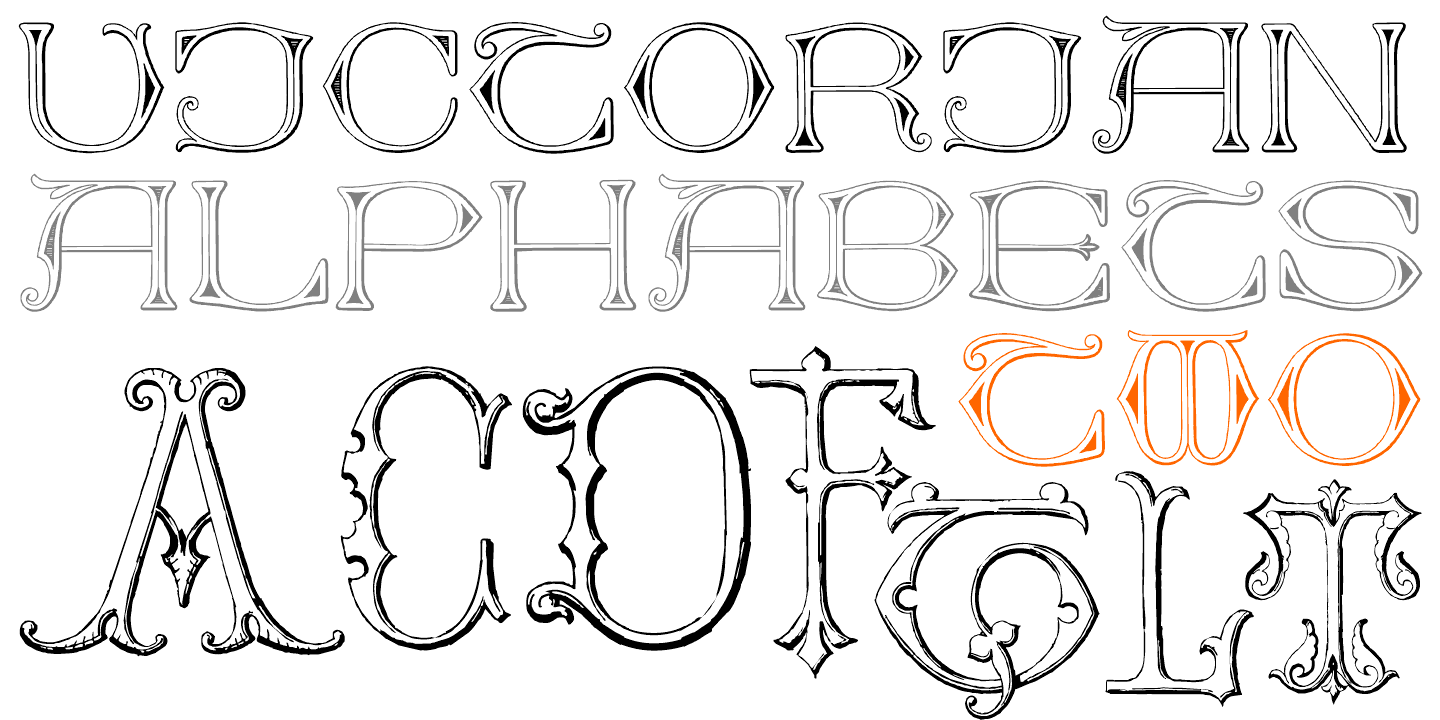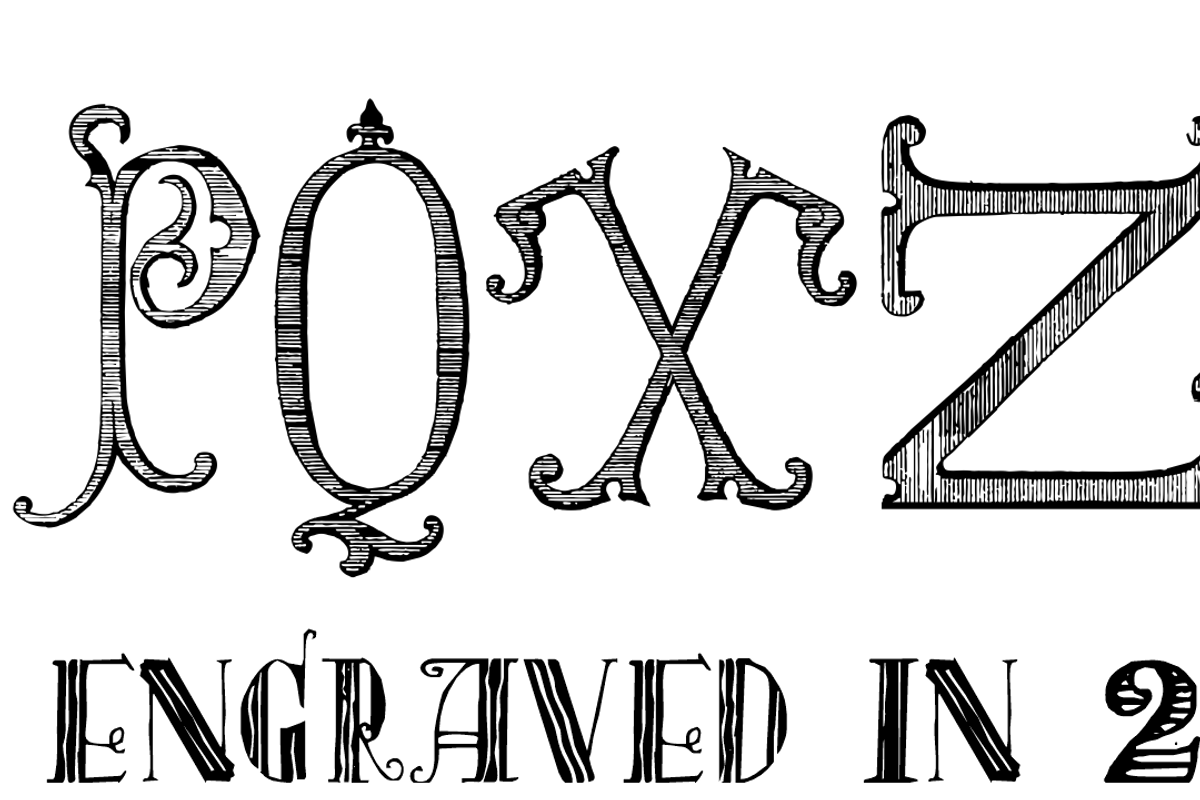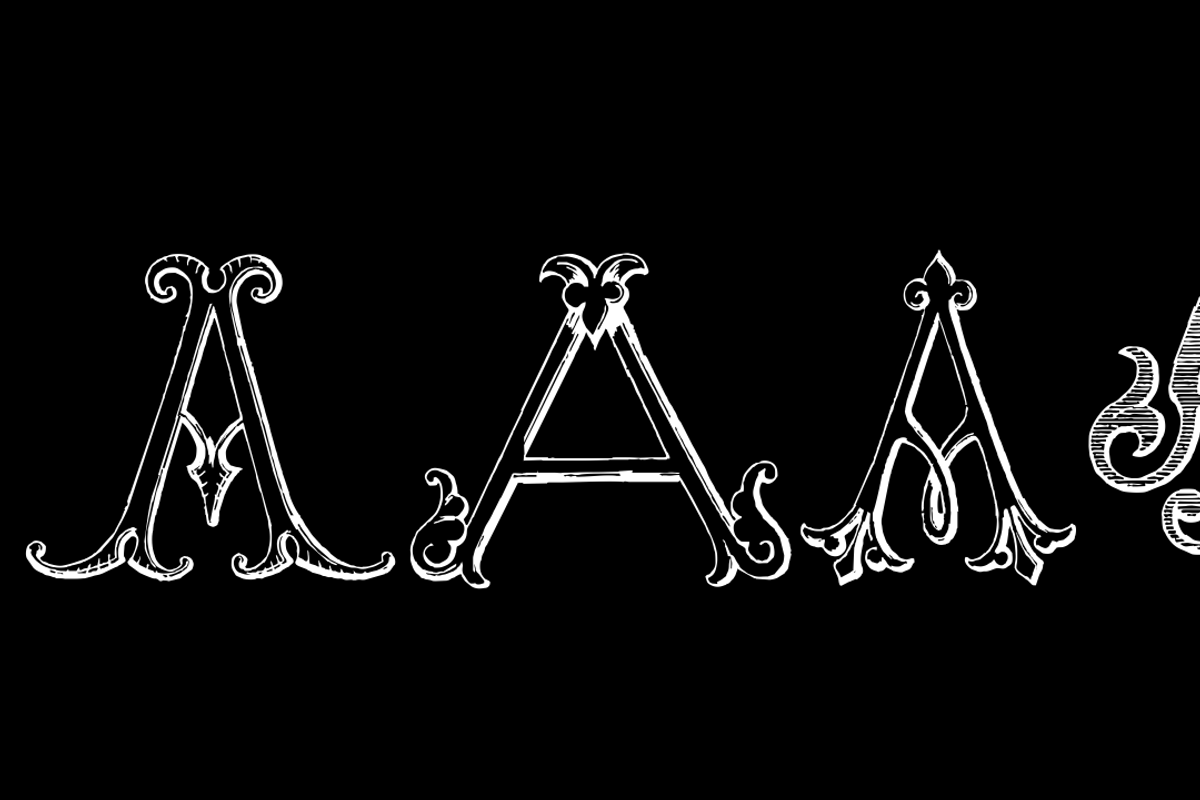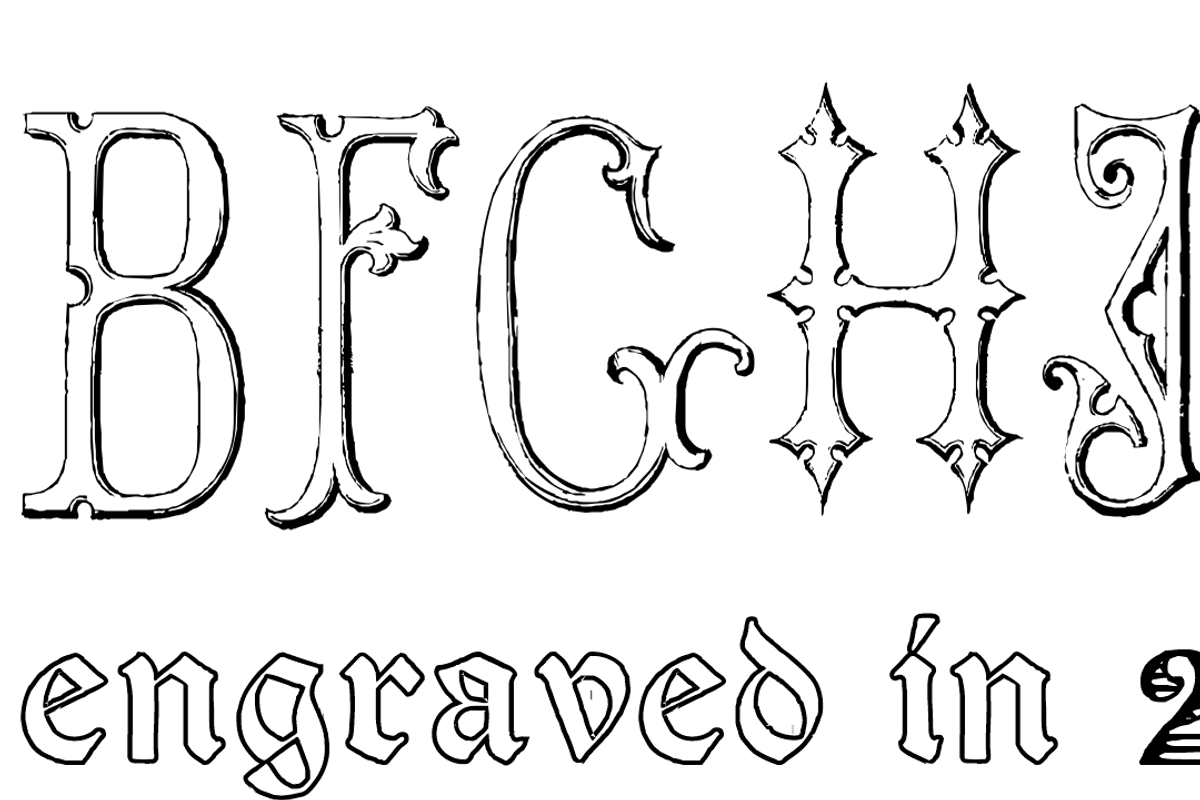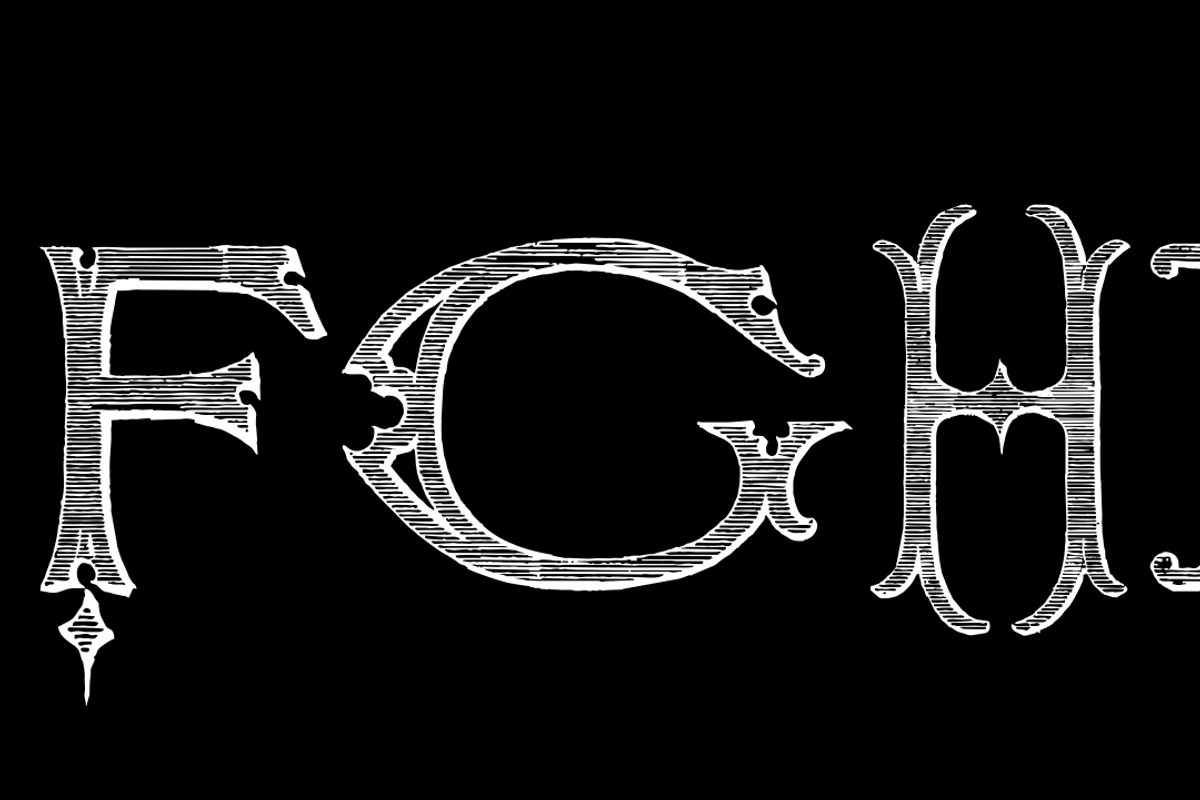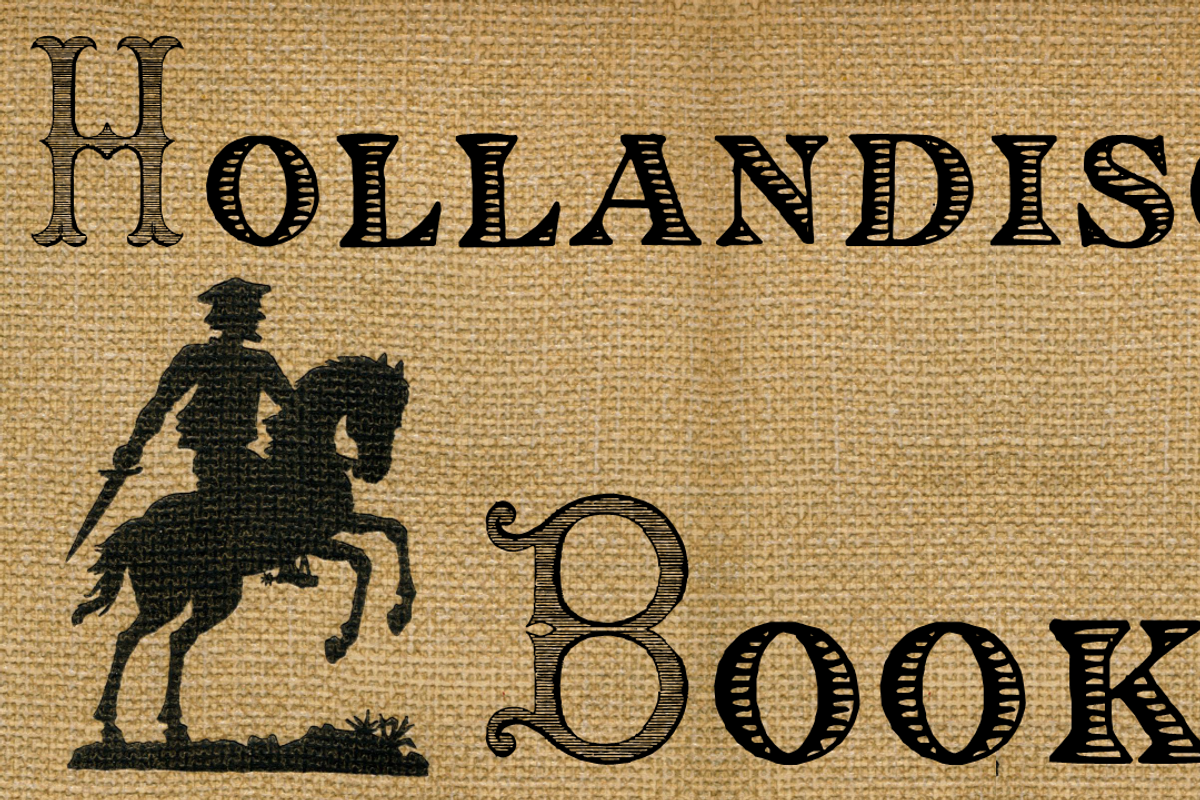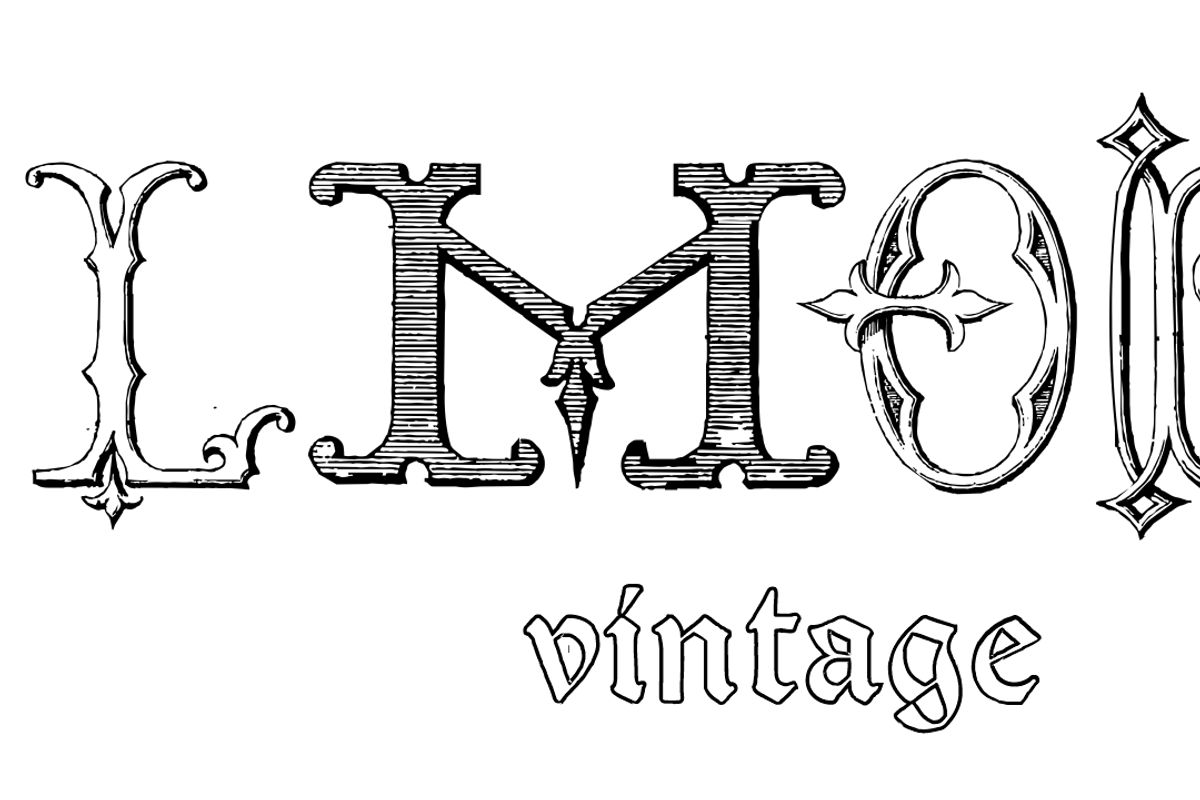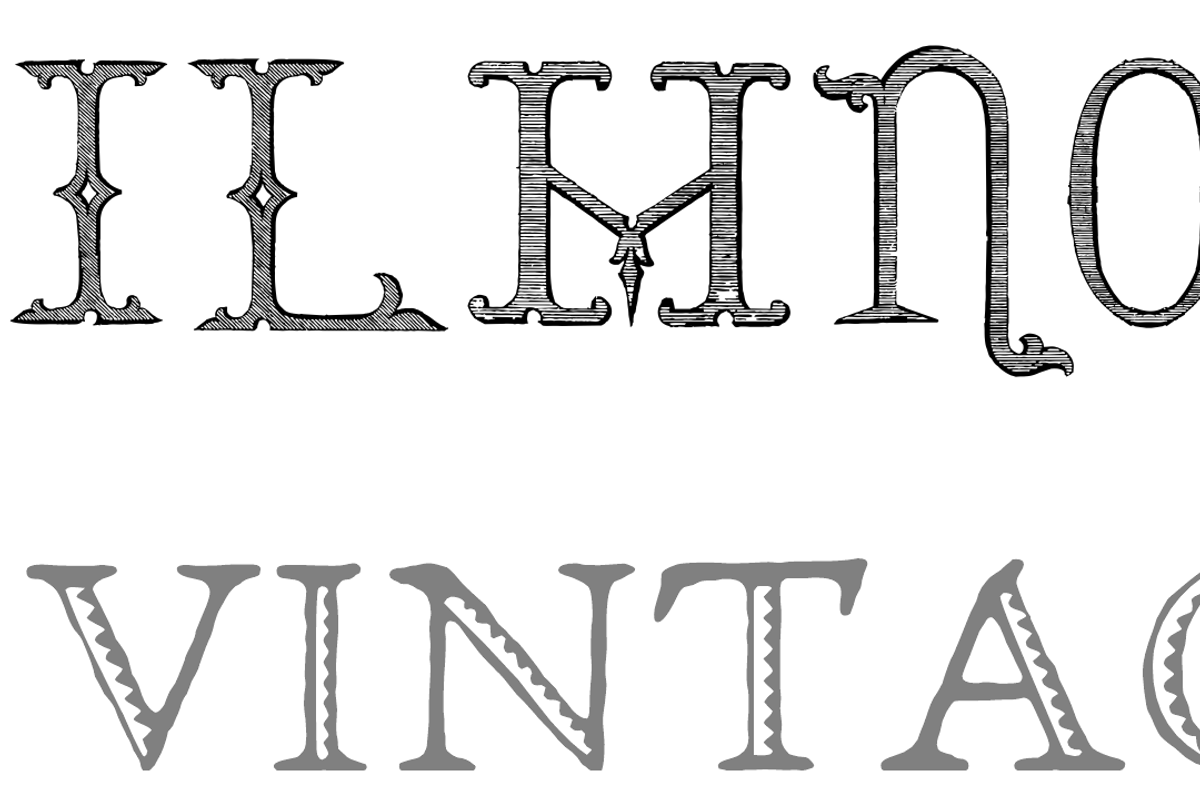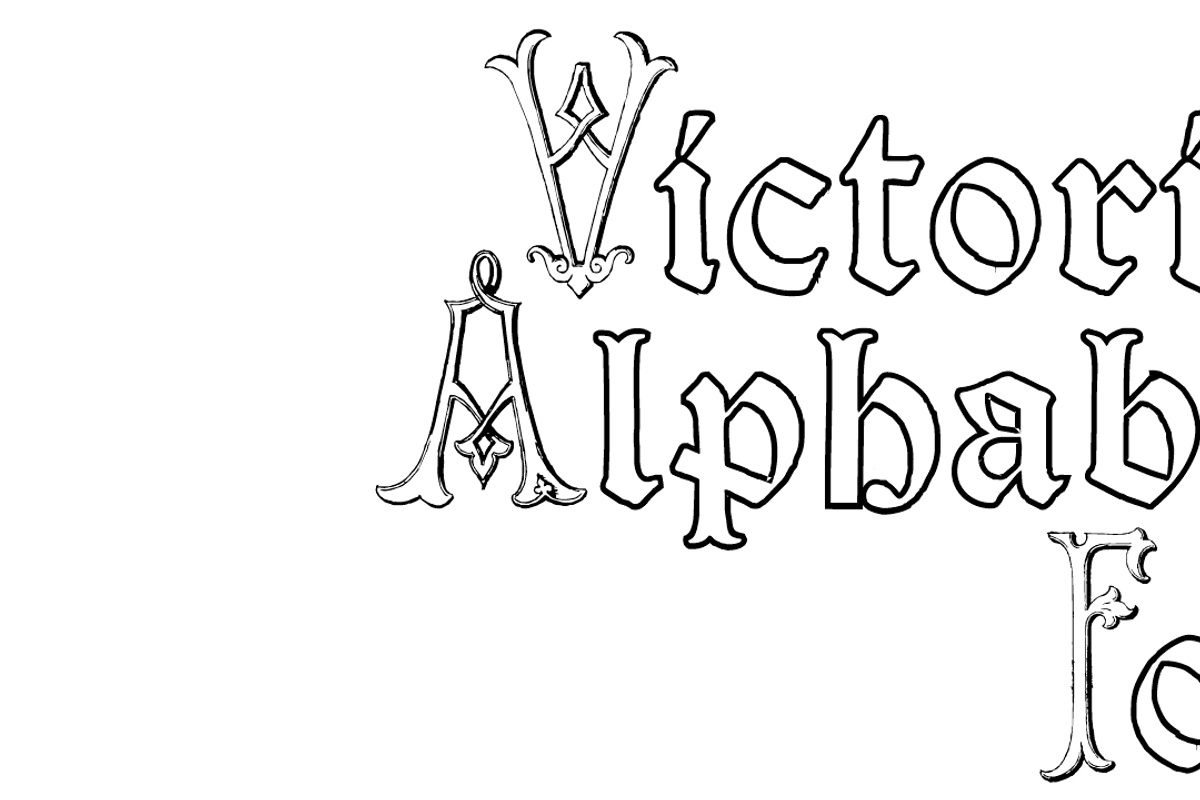
Victorian Alphabets PACK 19 FONTS !!
Victorian Alphabets is a distinct and imposing collection of display fonts. It has a classy and elegant look that can be used for logos, branding, invitations, stationery, wedding designs, social media posts, and much more. Inspired and reserached in old catalogs, newspaper and ephemera prints from the Victoria times.